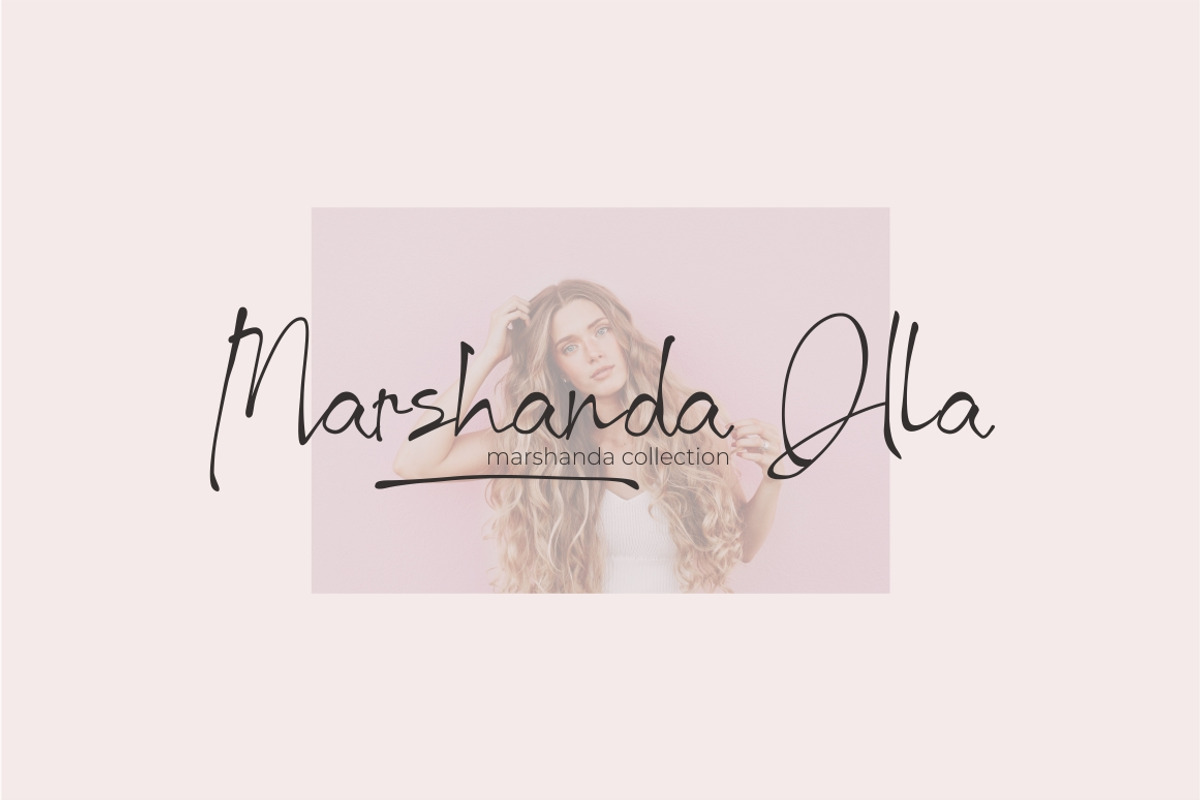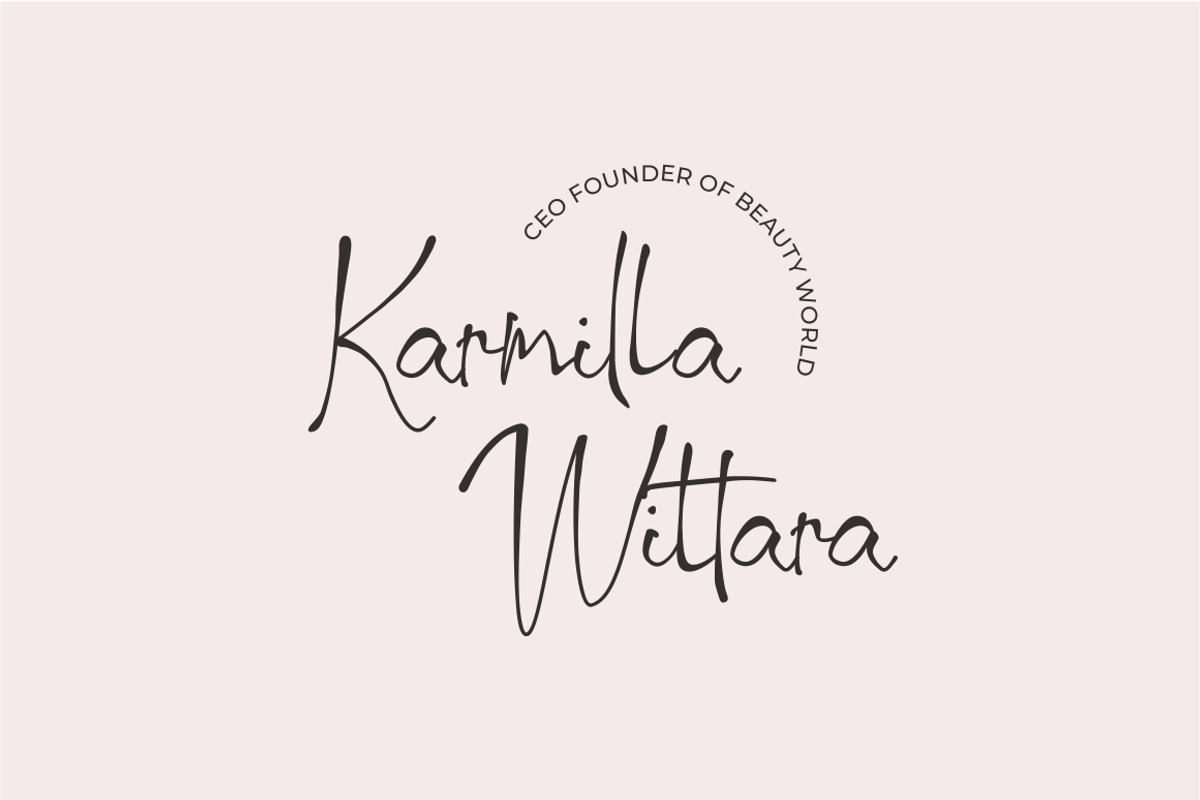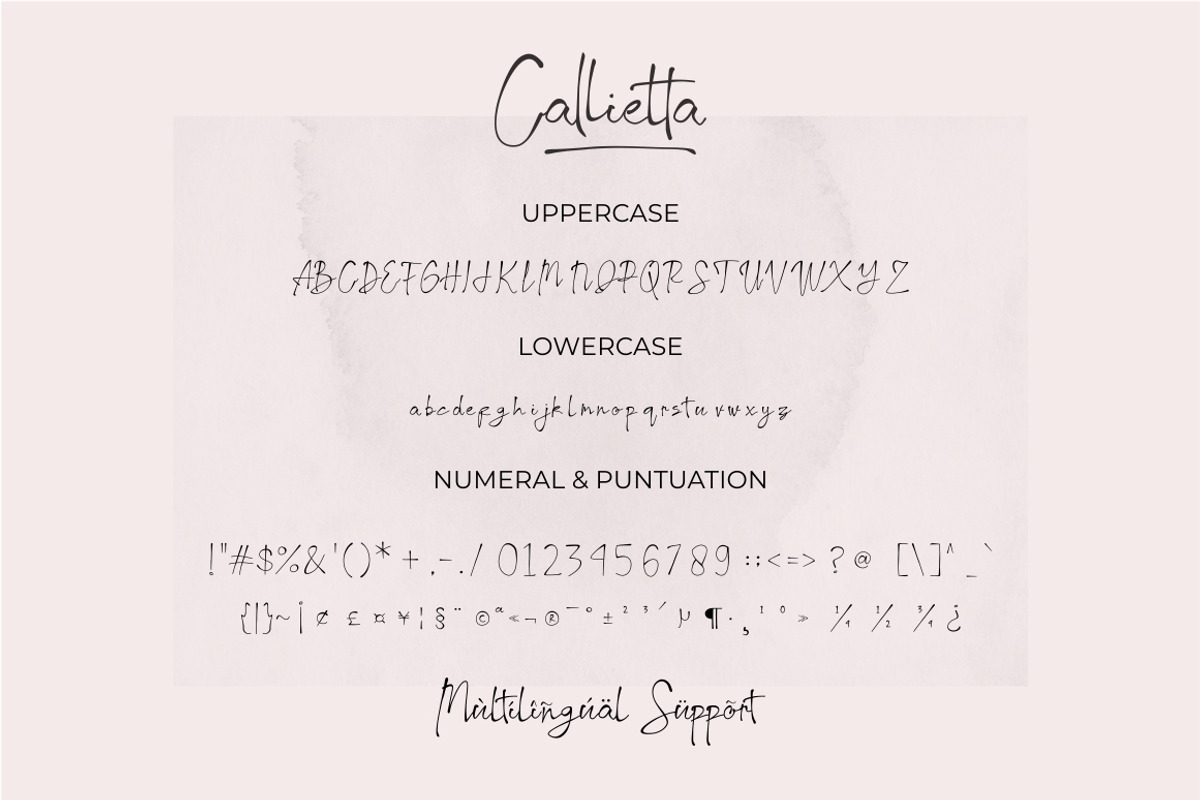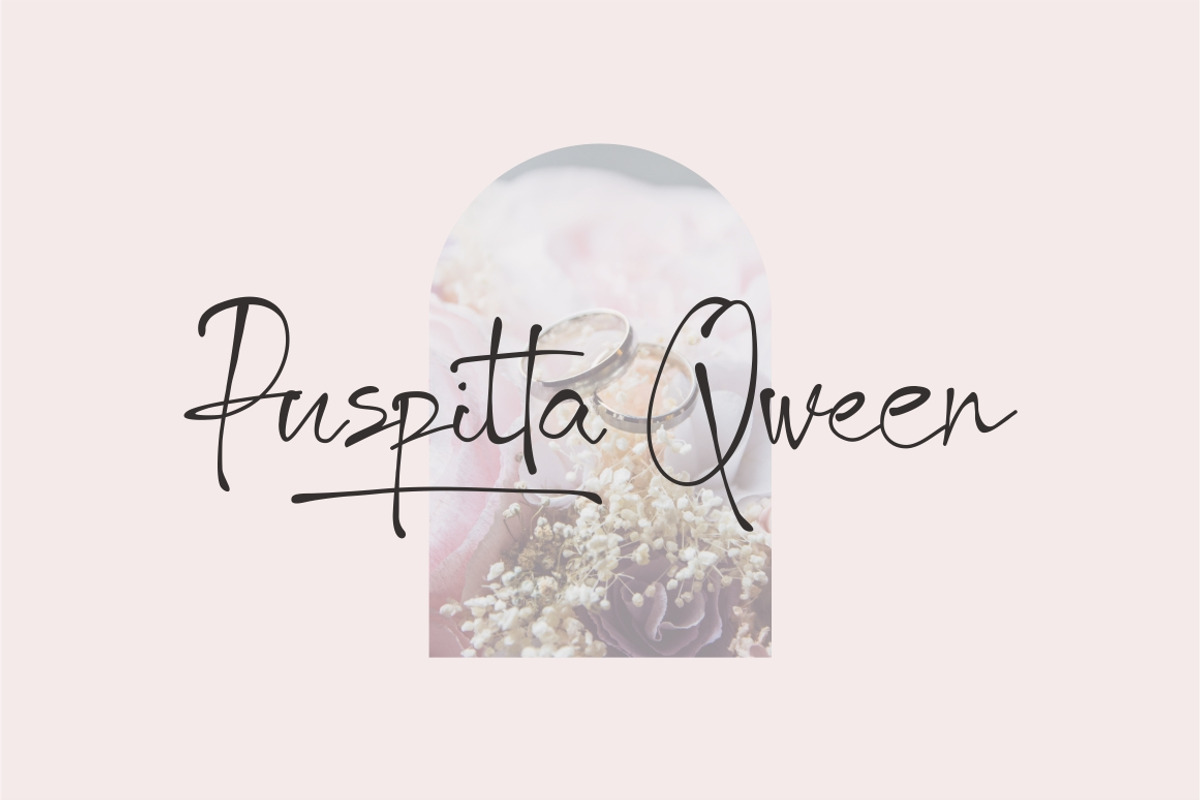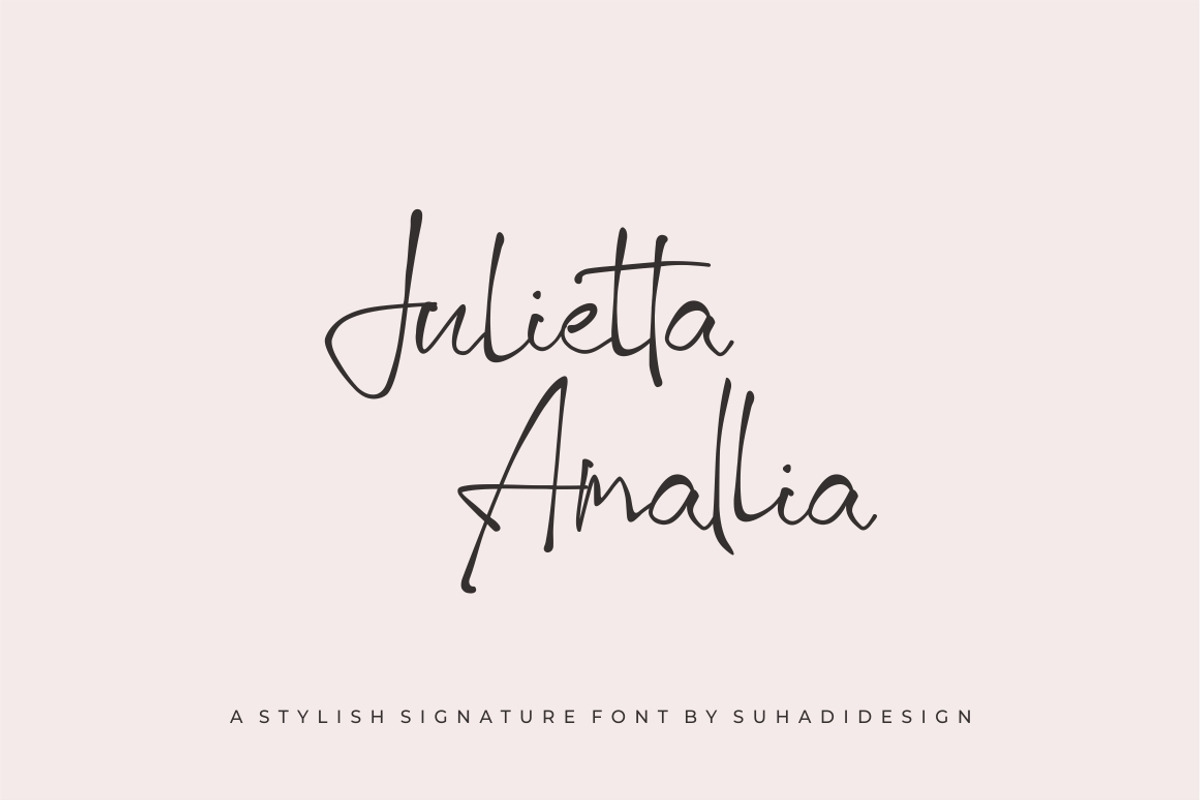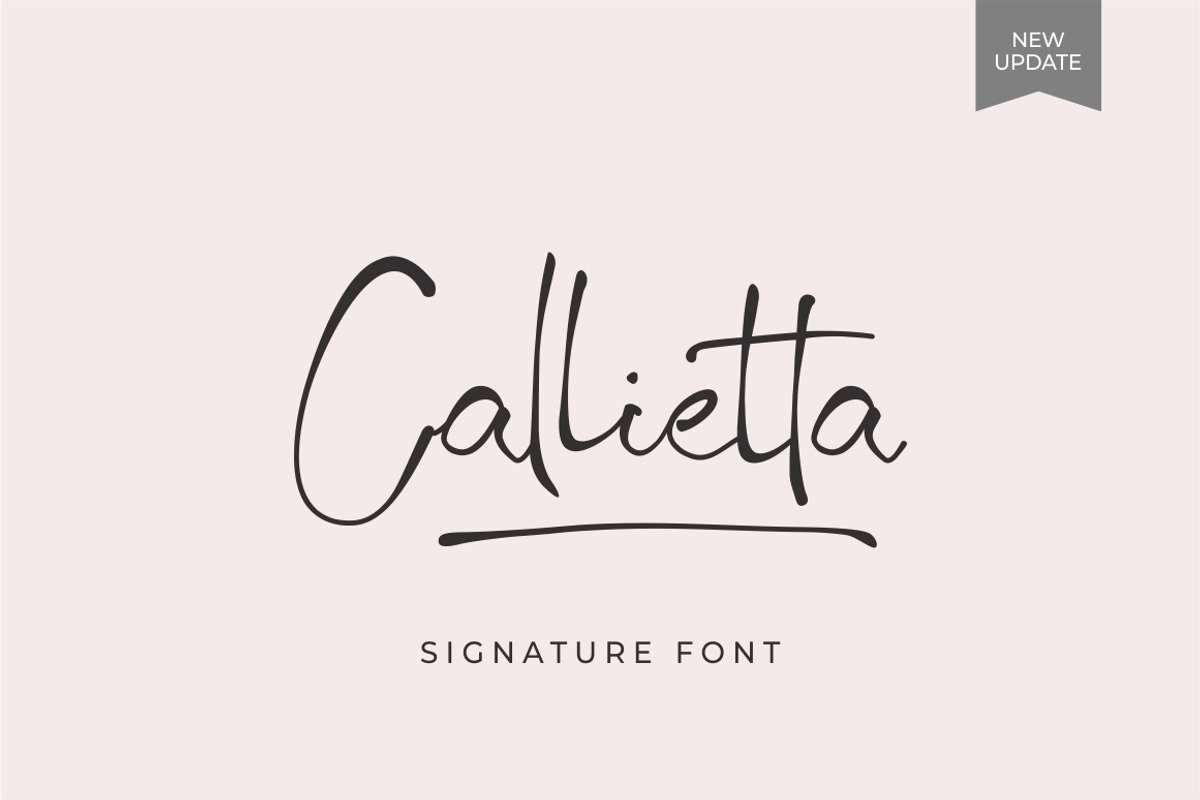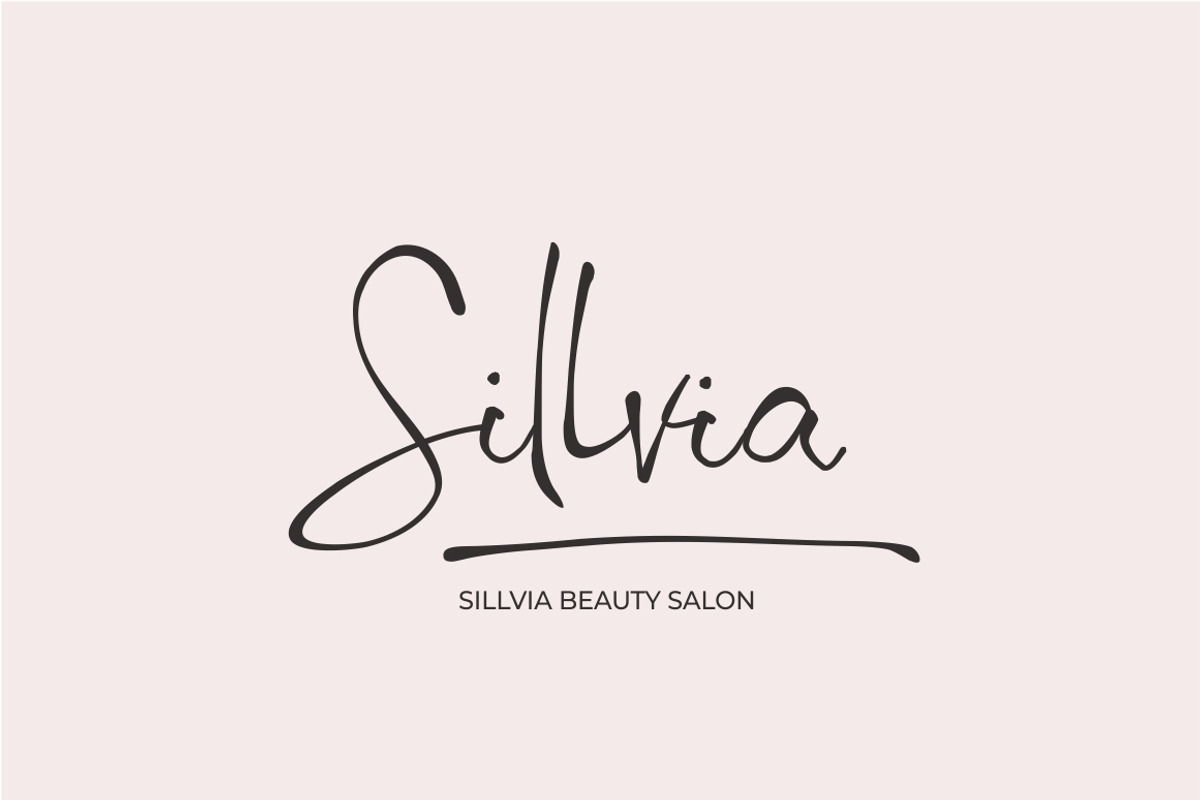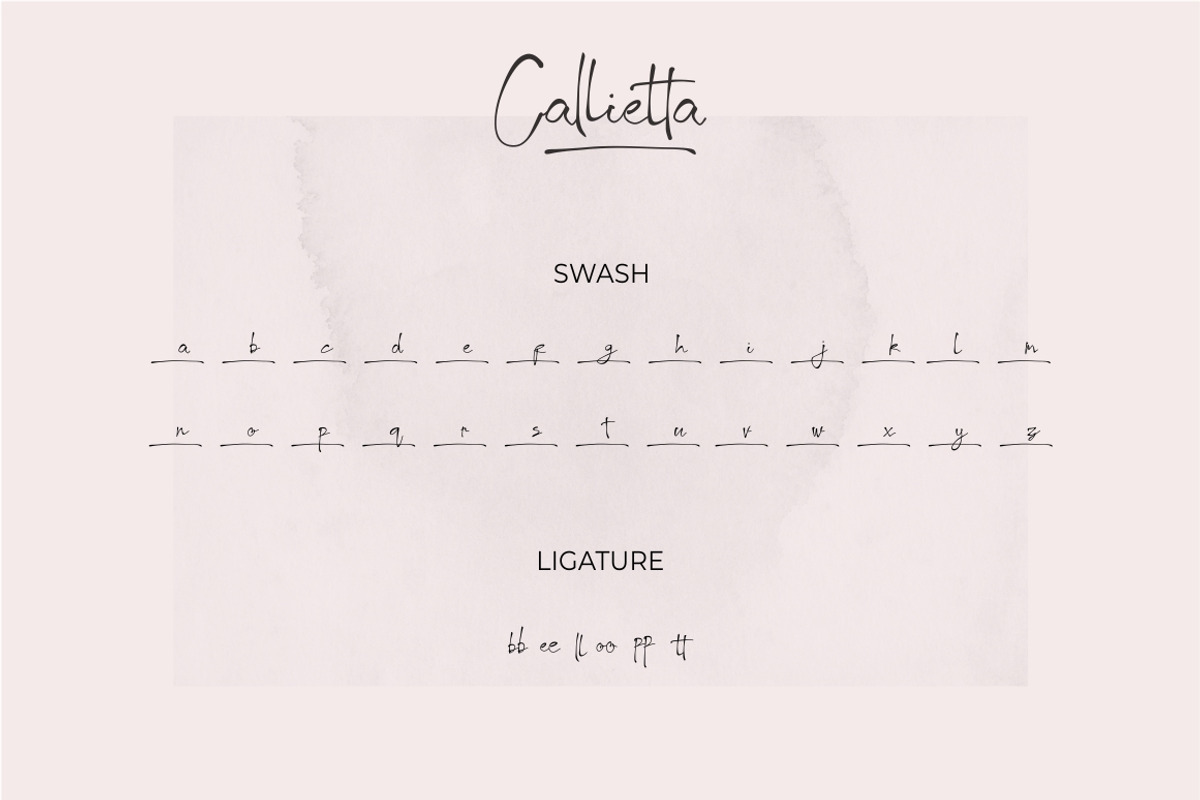
Callietta Handwritten Script Font
Callietta - handwritten font
Hi Ladies and Gentlemen! According to the market demand, the font is more inclined to the signature font, so I decided to make this signature font in your view. Callietta font is a simple and very popular font, comes with a modern style hoping to be accepted by the market. We keep this font looking elegant, classy, easy to read, stylish, attractive and easy to use. Callietta Font is a great choice for watermarks in photography, signature or signature logo designs, business brand names, quotes, album covers, beauty, business cards, packaging and many other design projects. From business cards to photo watermarks, The Callietta is here to take your work to the next level.
Callietta Font is my fourth new Font made in 2022
Callietta's style will make you love writing your name or your business name. Keep following us for the next font creation update :)
Font Features: • Lowercase swash underscore • Twin letter selection ligature